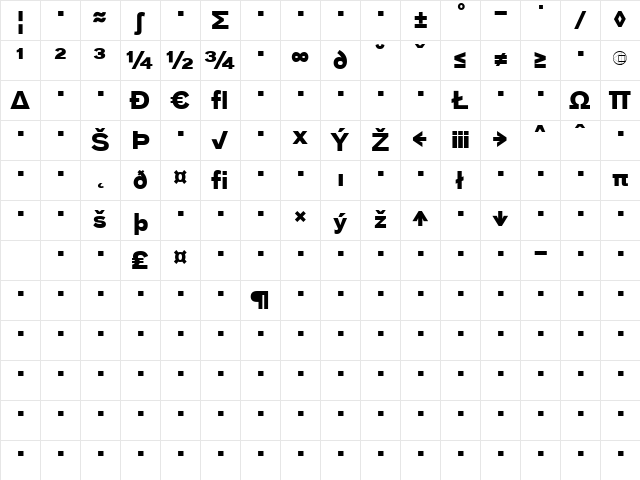
BauLF-BoldExpert Regular
Foundry: Christian Schwartz published by FontShop International for the FontFont Library
Designer: Christian Schwartz
Design Context for BauLF-BoldExpert
BauLF-BoldExpert is a composed and adaptable typeface that performs quietly and consistently across a wide range of design contexts. Its bold stroke weight gives it real presence on the page.
Who designed the BauLF-BoldExpert Regular font?